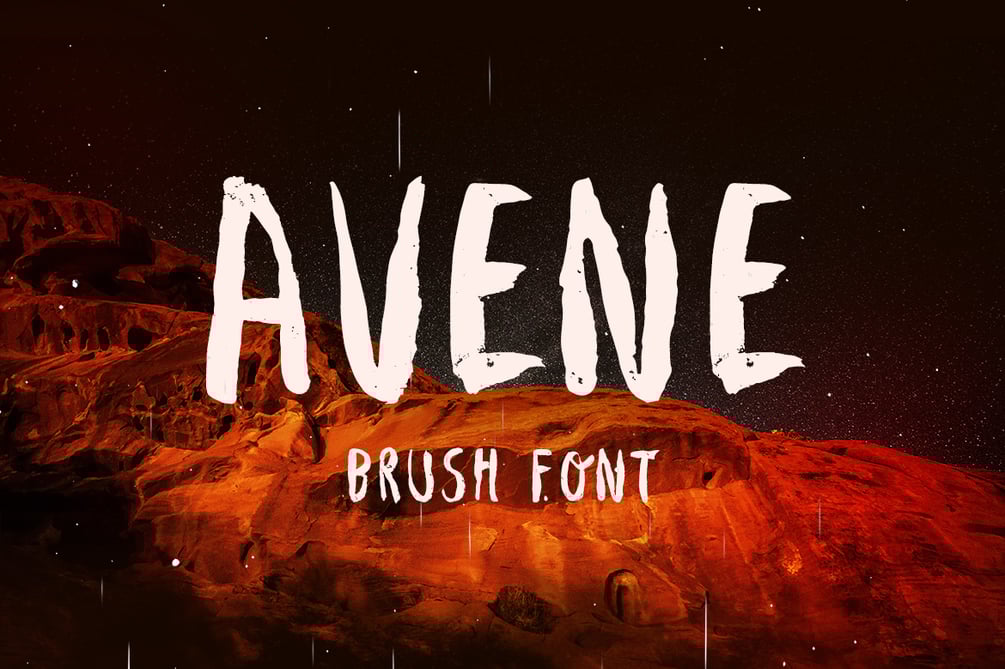
Avene Free Brush Font
Avene is a brush font made by hand with a thick brush.If you need a unique visual appeal, look no further. It features 94 characters and has all the basic glyphs. The download contains a .otf file and .woff. Brushed by Krisjanis Mezulis.
Inspired by the incredible beauty of the canyons found in USA, bright orange shaped rocks that tell us the story of how the world evolves over millions of years.